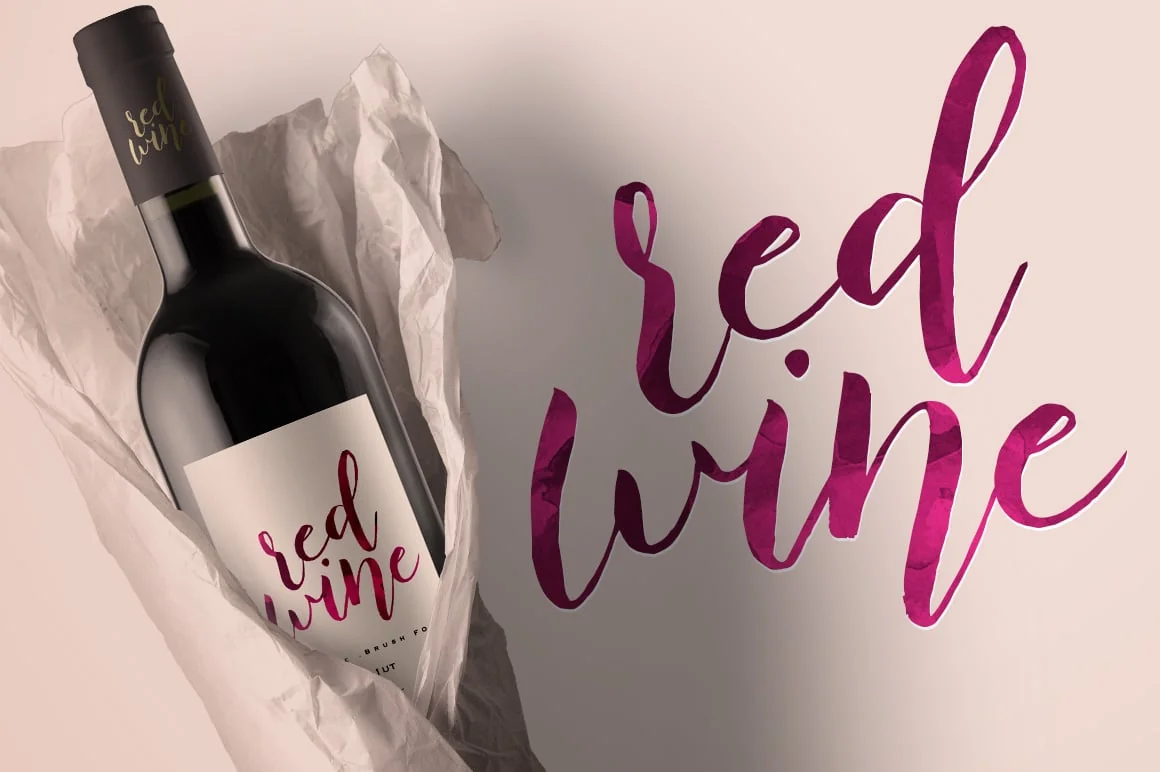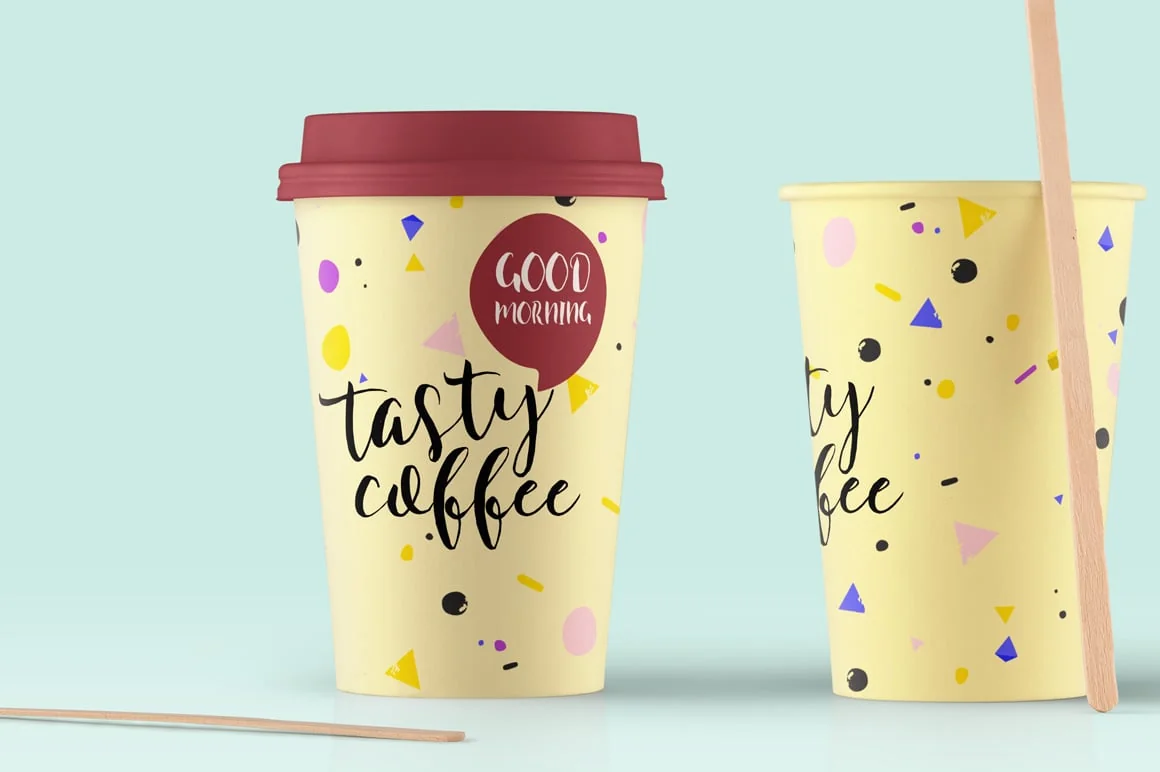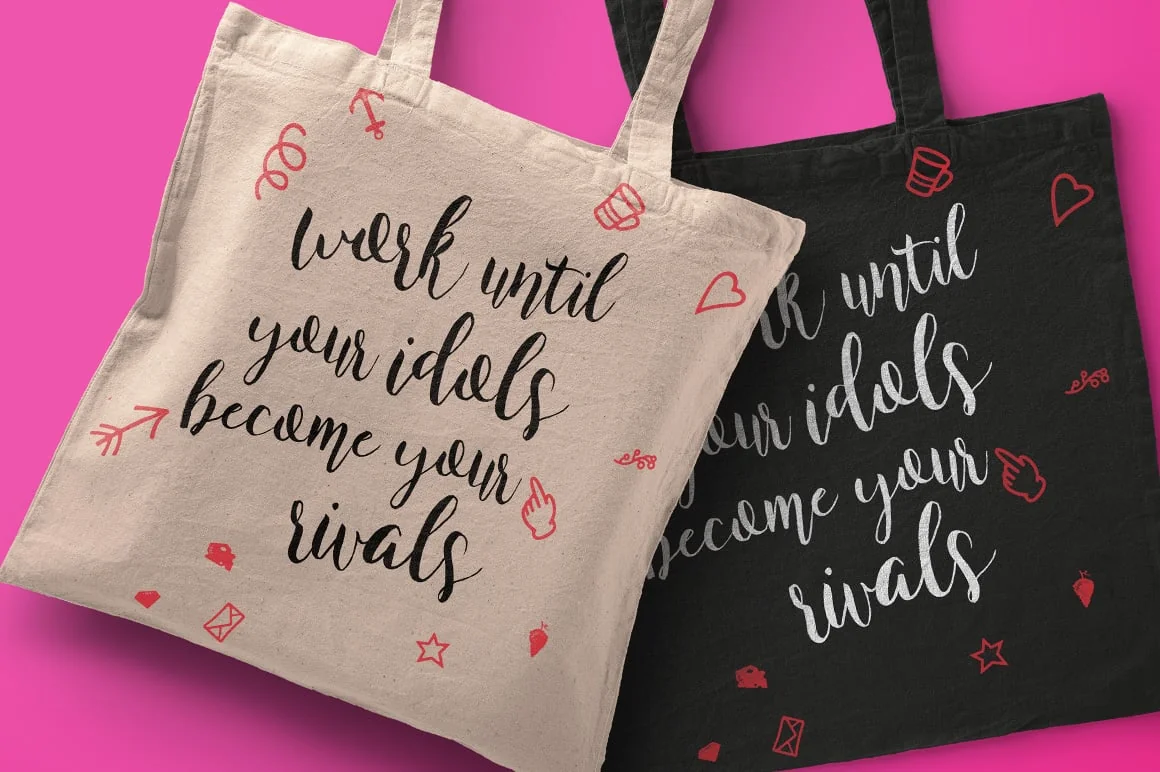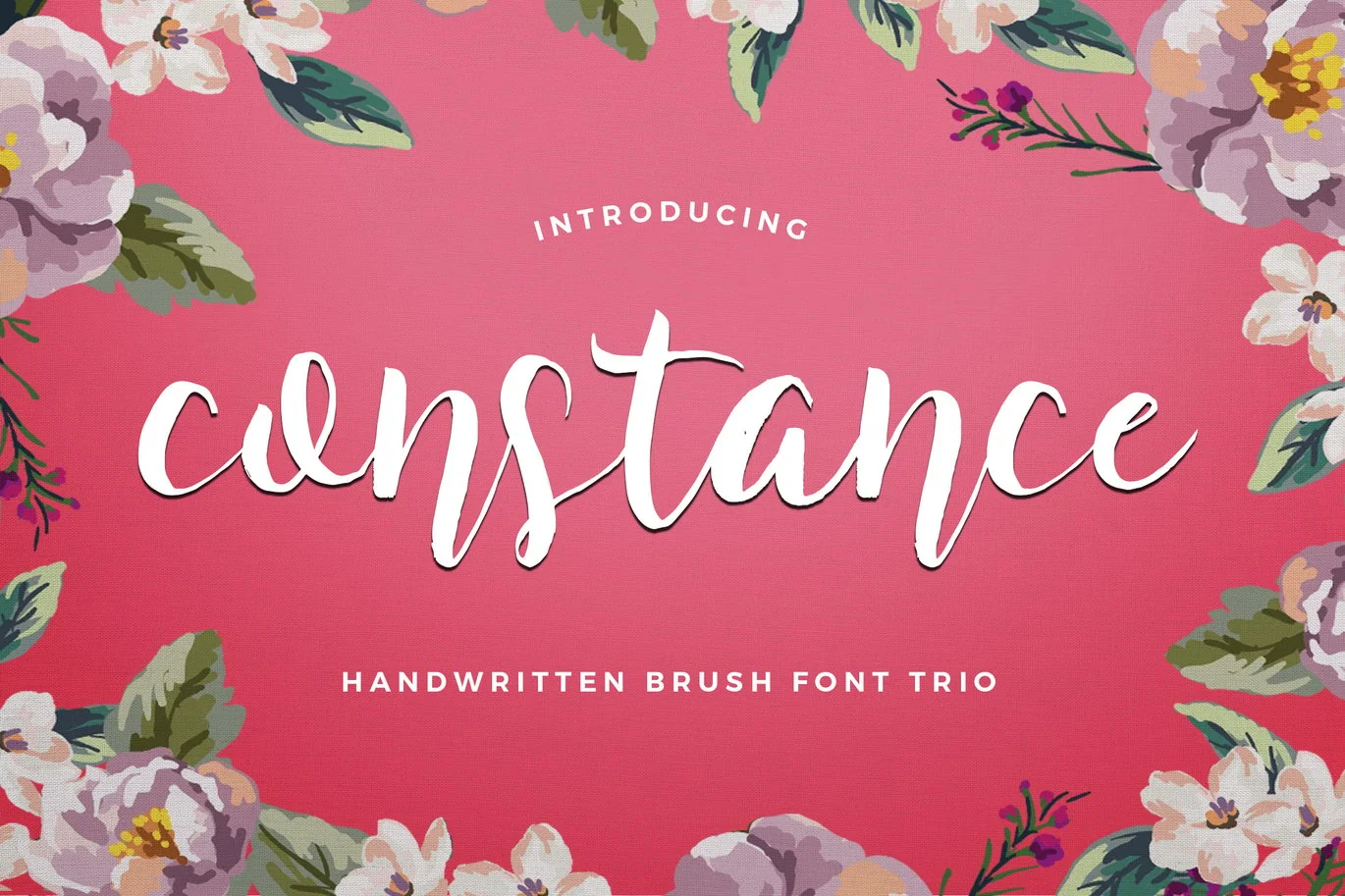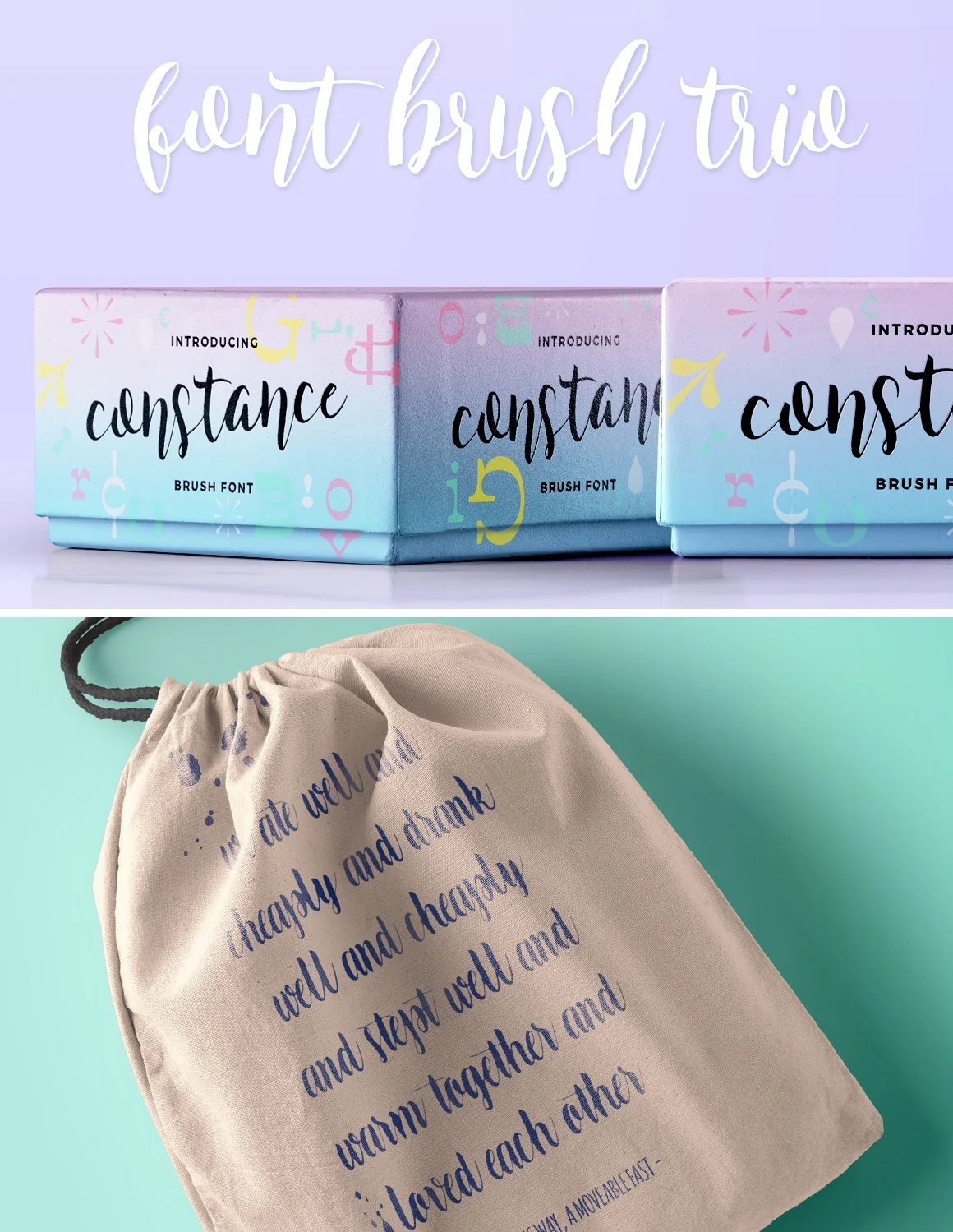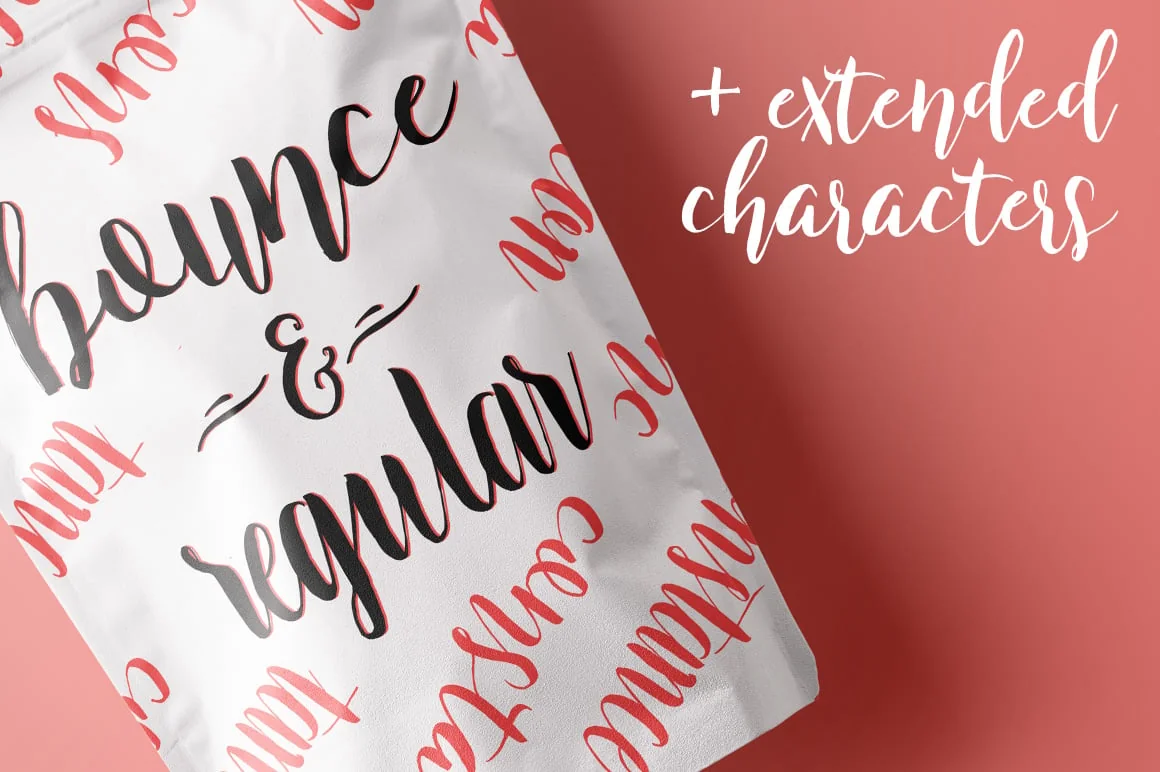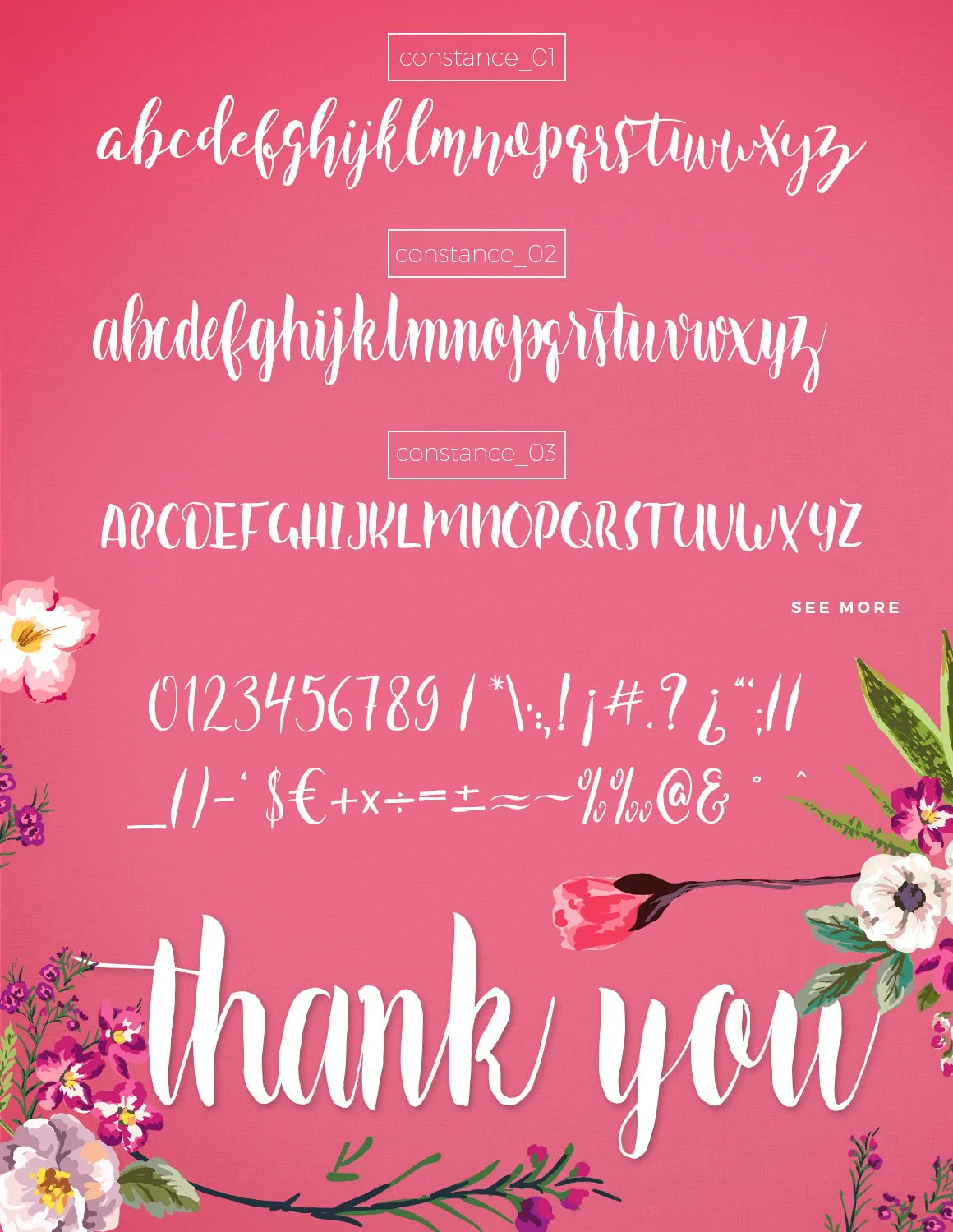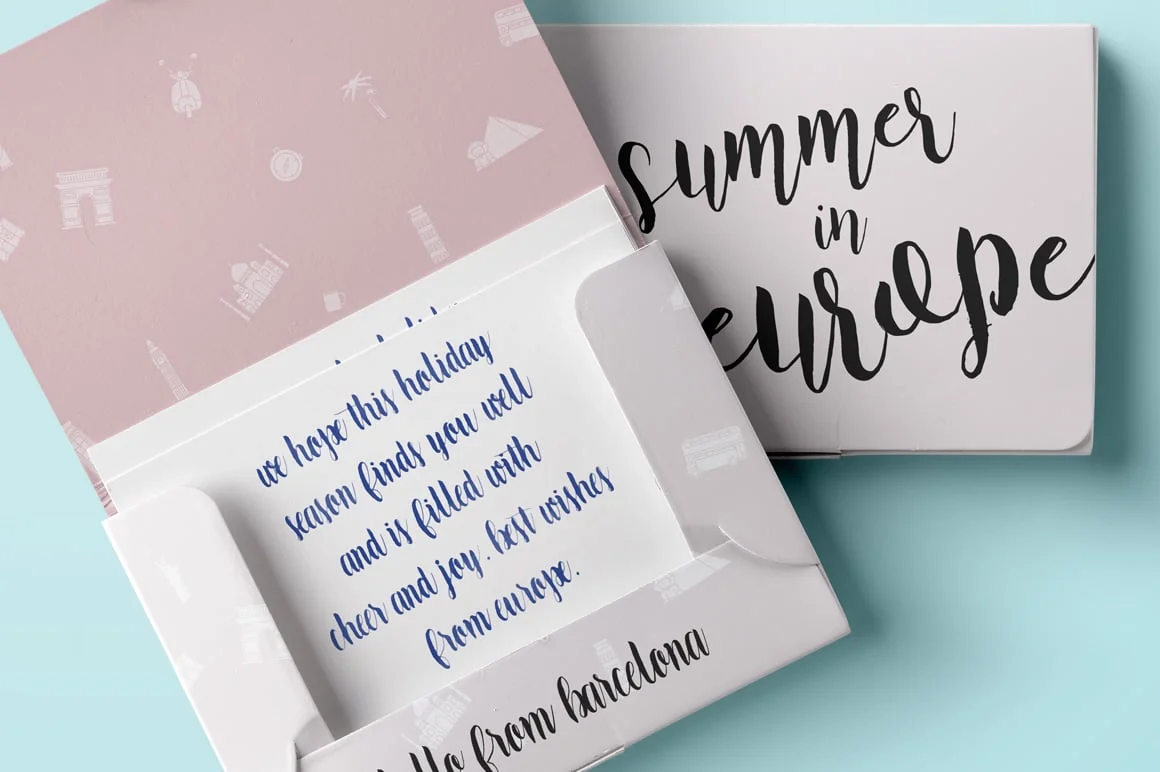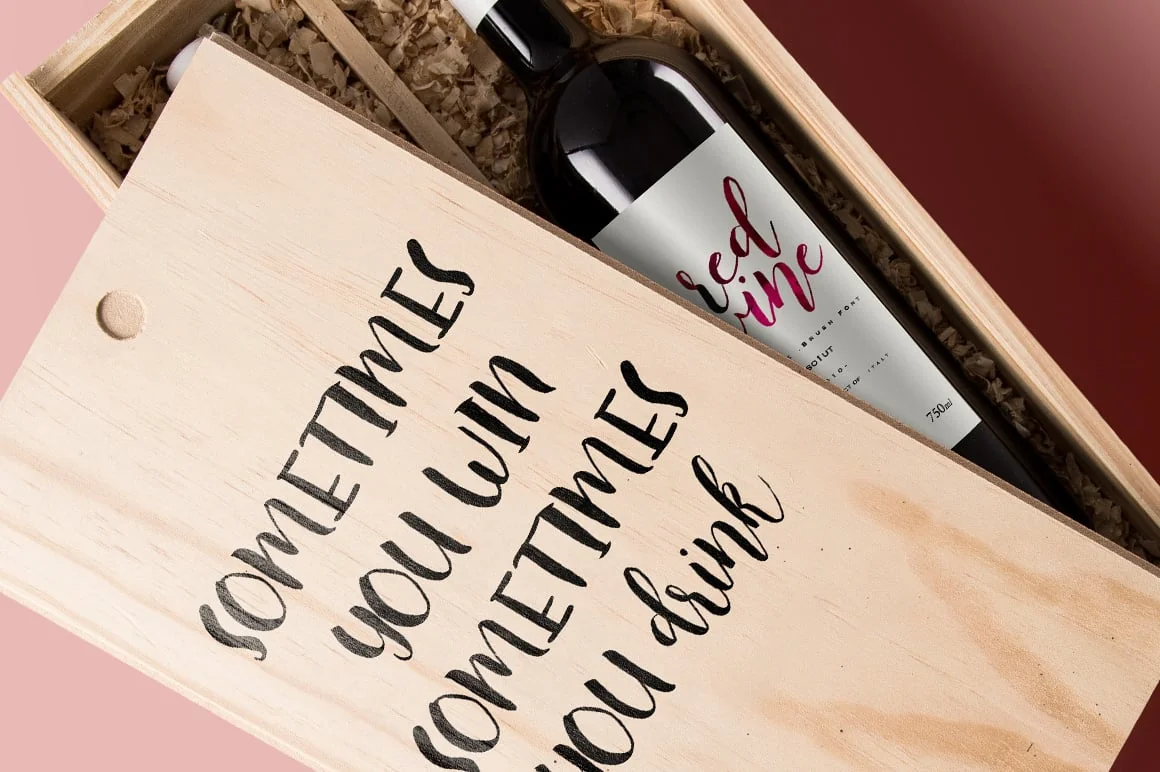
Constance Brush Font Trio
Constance Brush Font Trio is a hand brushed font with multilingual support. Constance is ideal for restaurant menus, greeting cards, invitations, weddings and many more.
It contains a set of lower (Constance_01,Constance_02) uppercase letters (Constance_03), numerals and multilingual support.